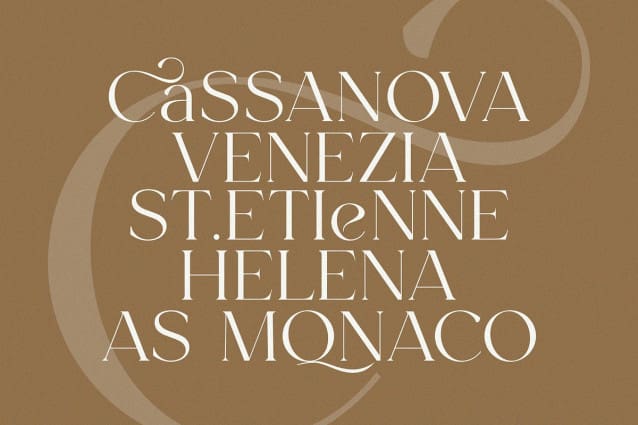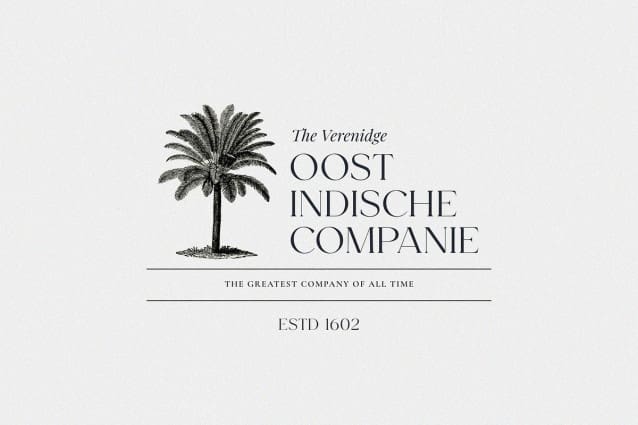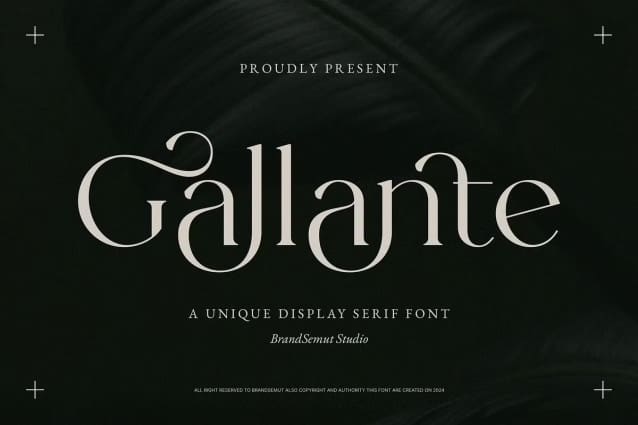
Gallante Font
Gallante Font is a modern and classy typeface, best used as a display for headings, logos, branding, magazines, product packaging and invitations. Gallante come with clean lines and smooth curves give any project an extra touch of class.